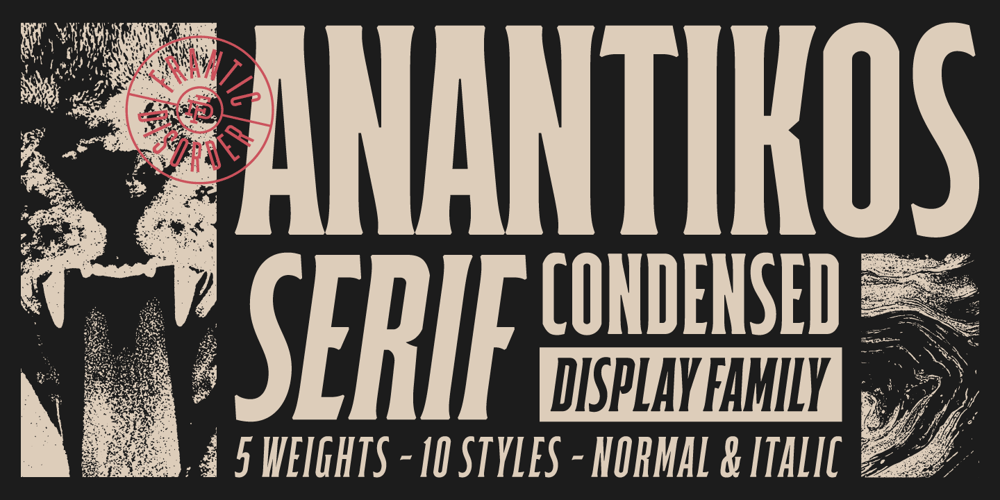
Anantikos Serif
Anantikos Serif font
Anantikos Serif Font Family was designed by Kautsar Rahadi and published by Frantic Disorder. Anantikos Serif contains 10 styles and family package options. Anantikos is a condensed typeface with old-style and transitional serif inspiration, representing a contrast with a classic feel. The font comes in 10 styles, including 5 different weights and italic versions, ranging from Light to Bold. It’s perfectly suited for display purposes such as headings, branding, logos, posters, and more.